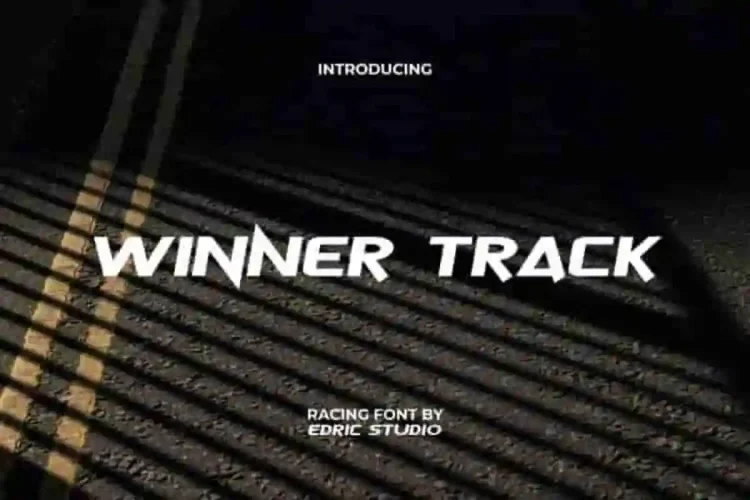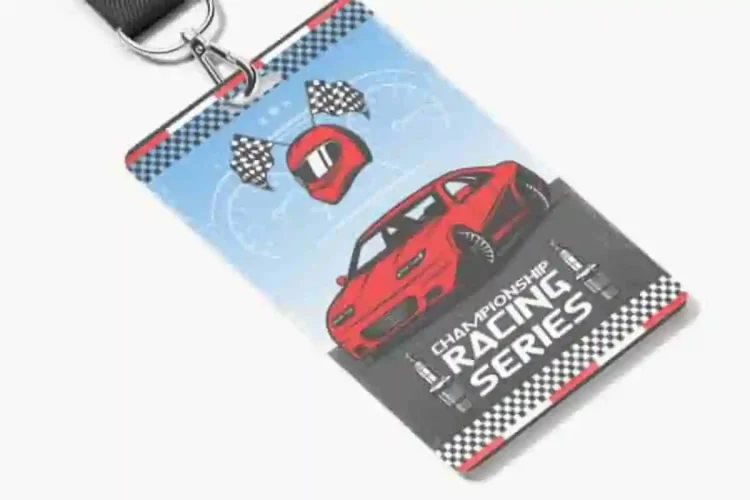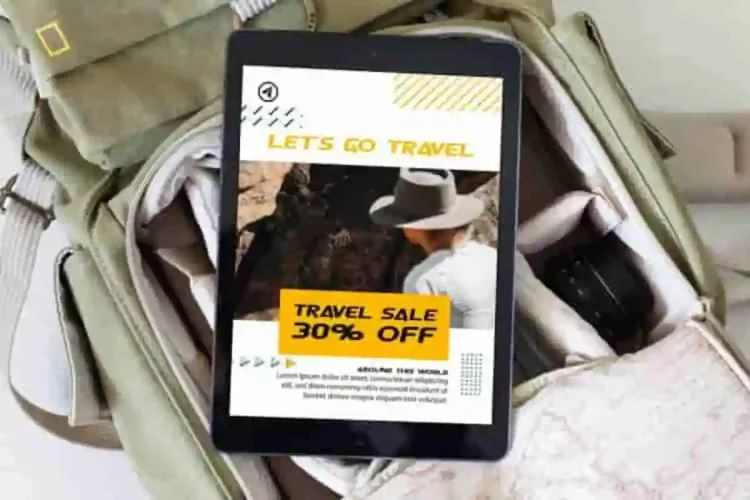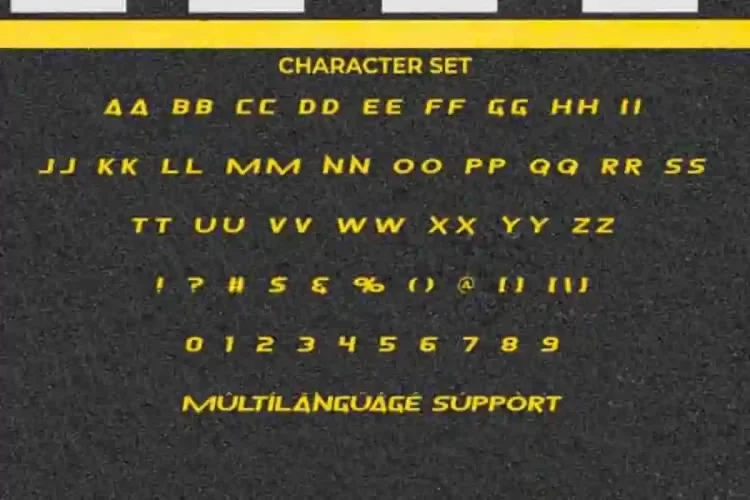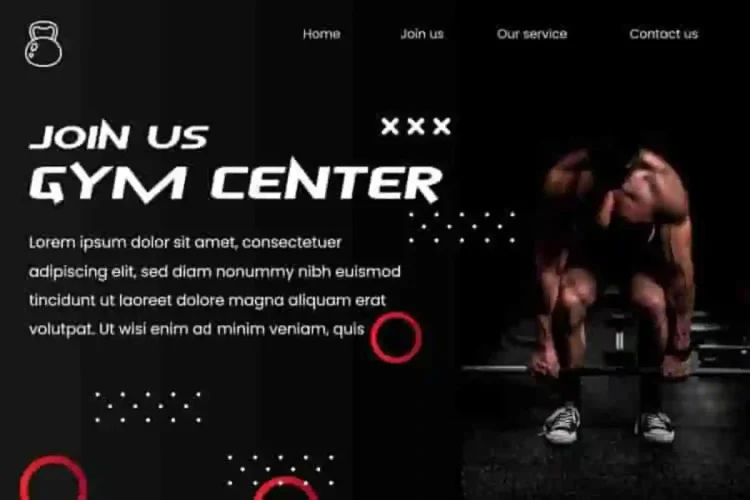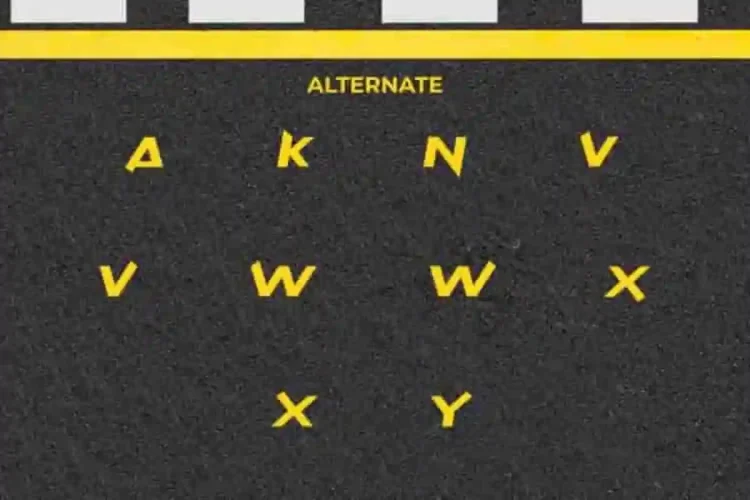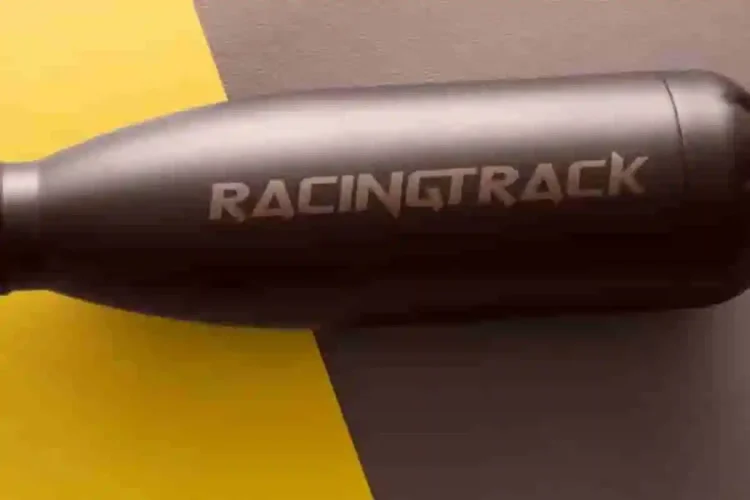
Winner Track Modern Font is a racing sans display font with a modern unique style. The font evokes a sense of the future or conveys a modern aesthetic. With its sharp corners, squared edges, and futuristic style, this font adds a unique touch to any creative project.
Winner Track Modern Display Font ideal for billboards, posters, logos, product labels, flyers, packaging, websites, and signage, this font works across industries like advertising, sports, gaming, fitness, fashion, merchandise, publishing, movies, and more. Its versatile design makes it the perfect choice for creative professionals looking to stand out.
Winner Track Font a playful typeface with unique decoration in each character. Combine different characters for a bespoke, handcrafted feel. It’s tested to work well in the Adobe Apps (Illustrator, Adobe InDesign, Adobe Photoshop) even work on Microsoft Word. All of these characters are available through the glyph panel, moreover each letter has its own unicode (PUA) so you can access all the characters easily.